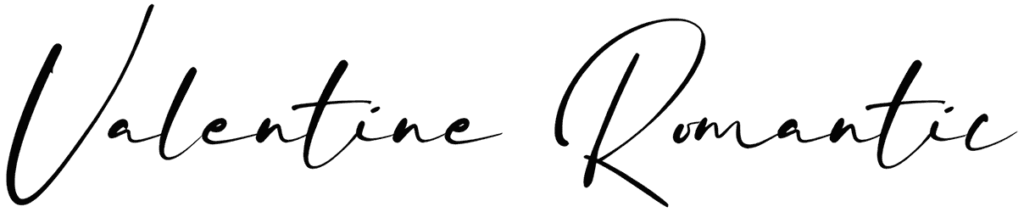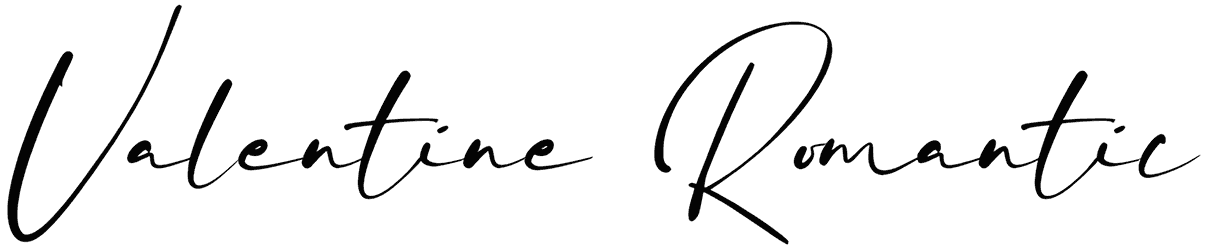
Valentine Romantic Font
So everything here is working together to let you know how this dreamy font can be useful to you, but you probably shouldn’t wait the whole year for Valentine’s Day just so you can have fun with Valentine Romantic here.
When a project needs to be handwritten, it can be tastefully handled with this calligraphy font of RB, even if it’s not exactly considered romantic. That includes any postcard or spring design that can use the gentle personal touch of Valentine Romantic.